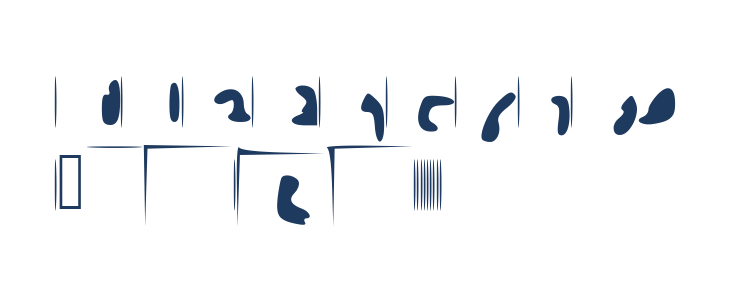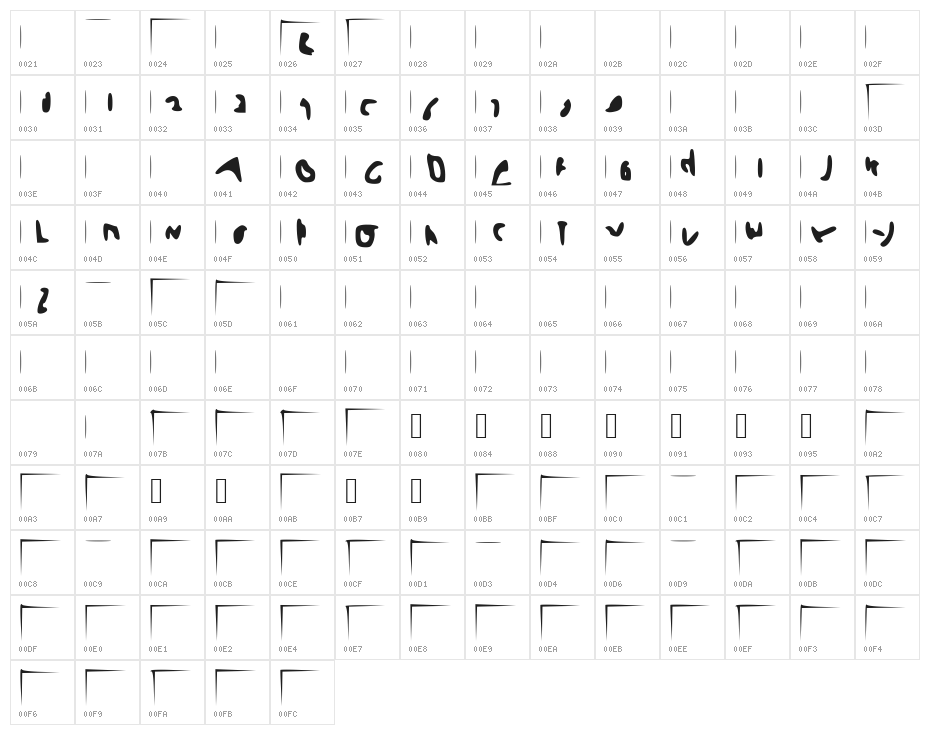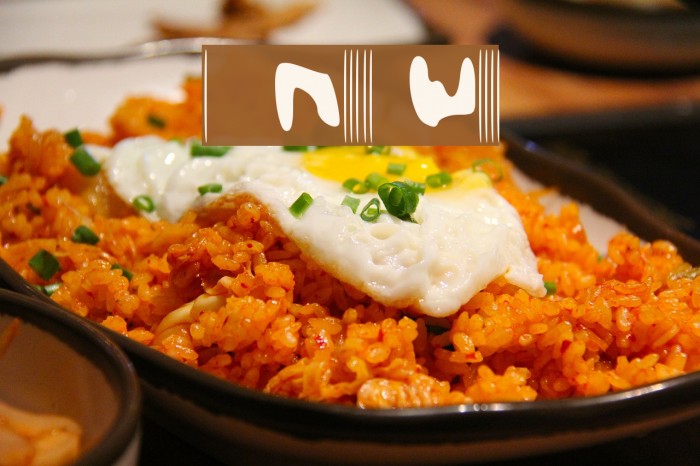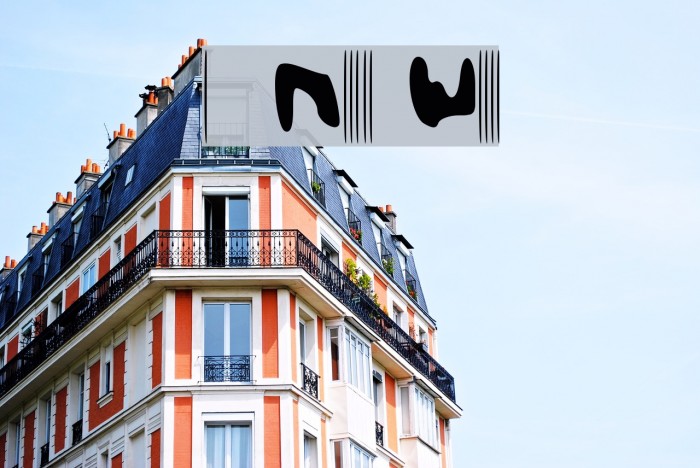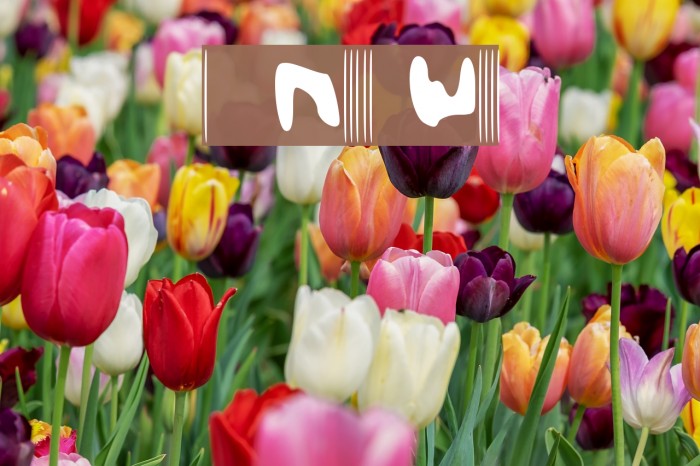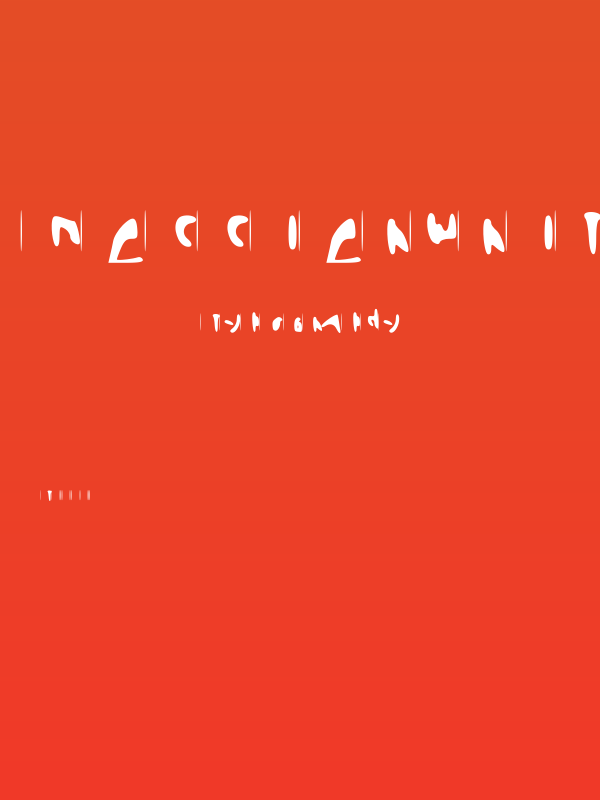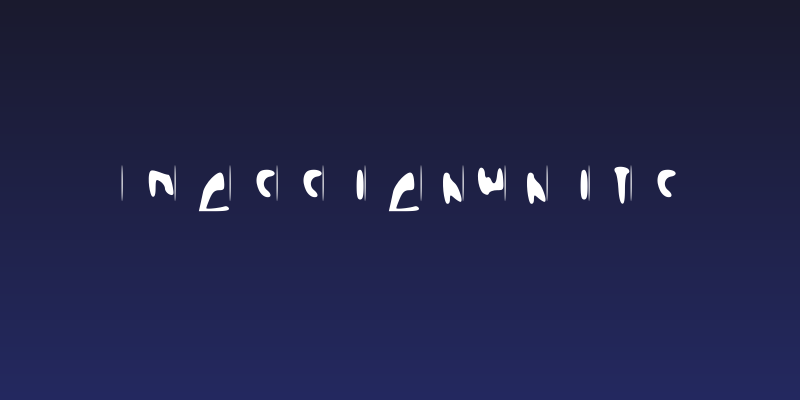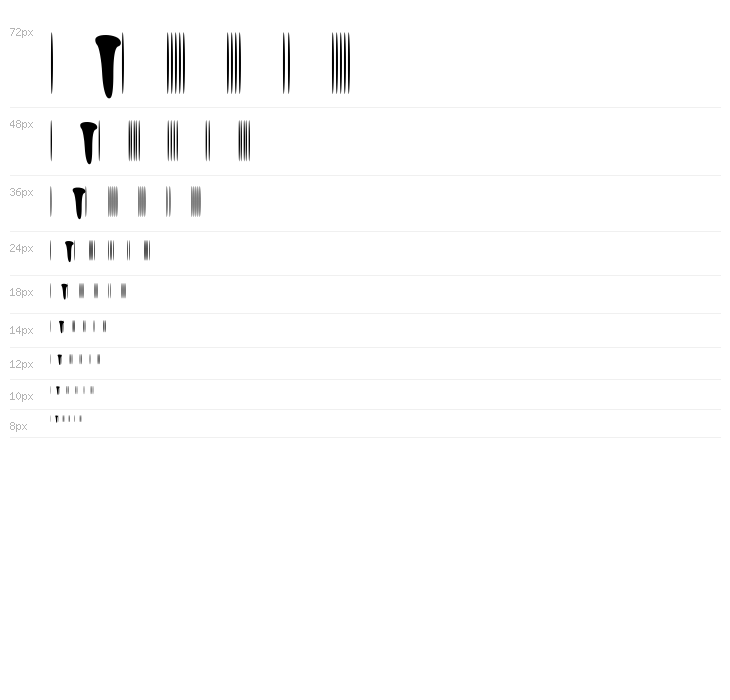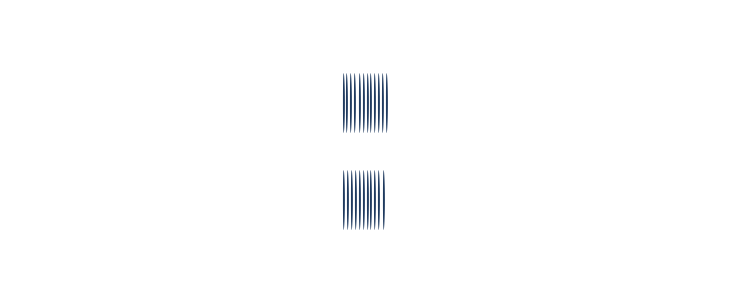
MessierWrits Font
MessierWrits Description
This font features an abstract and artistic style, characterized by its unique and unconventional letterforms. Each character appears to be hand-drawn, with varying stroke thicknesses that create a dynamic and expressive look. The letters are not uniform, giving them a playful and creative appearance. The font lacks traditional structure, making it ideal for projects that require a distinctive and eye-catching design. Its irregular shapes and bold strokes make it stand out, offering a sense of movement and energy. This font is perfect for artistic and experimental designs, where creativity and individuality are key.
| Overall Style | Artistic, Creative |
| Use Case | Logos, Posters, Artistic Designs |
| Proposed Projects | Ideal for artistic projects, experimental designs, and creative branding. |